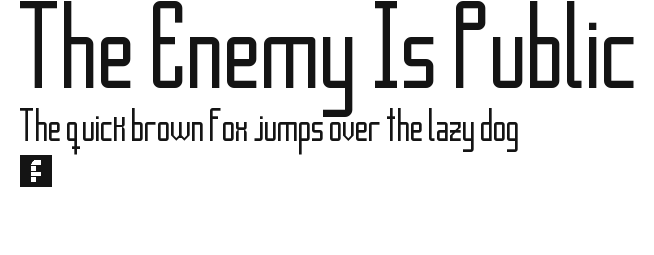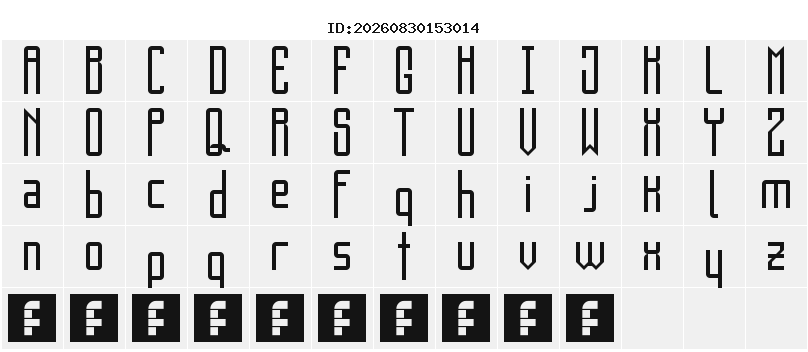
• Font Name: The Enemy Is Public
• Full Font Name: The Enemy Is Public Regular
• Designer: stigma
• Description: ‚ÄúThe Enemy Is Public‚Äù was built with FontStruct
About The Enemy Is Public.ttf
The Enemy Is Public.ttf is a modern, elegant sans-serif font designed for ultimate readability and visual harmony. Perfect for branding, headlines, web design, and print materials.